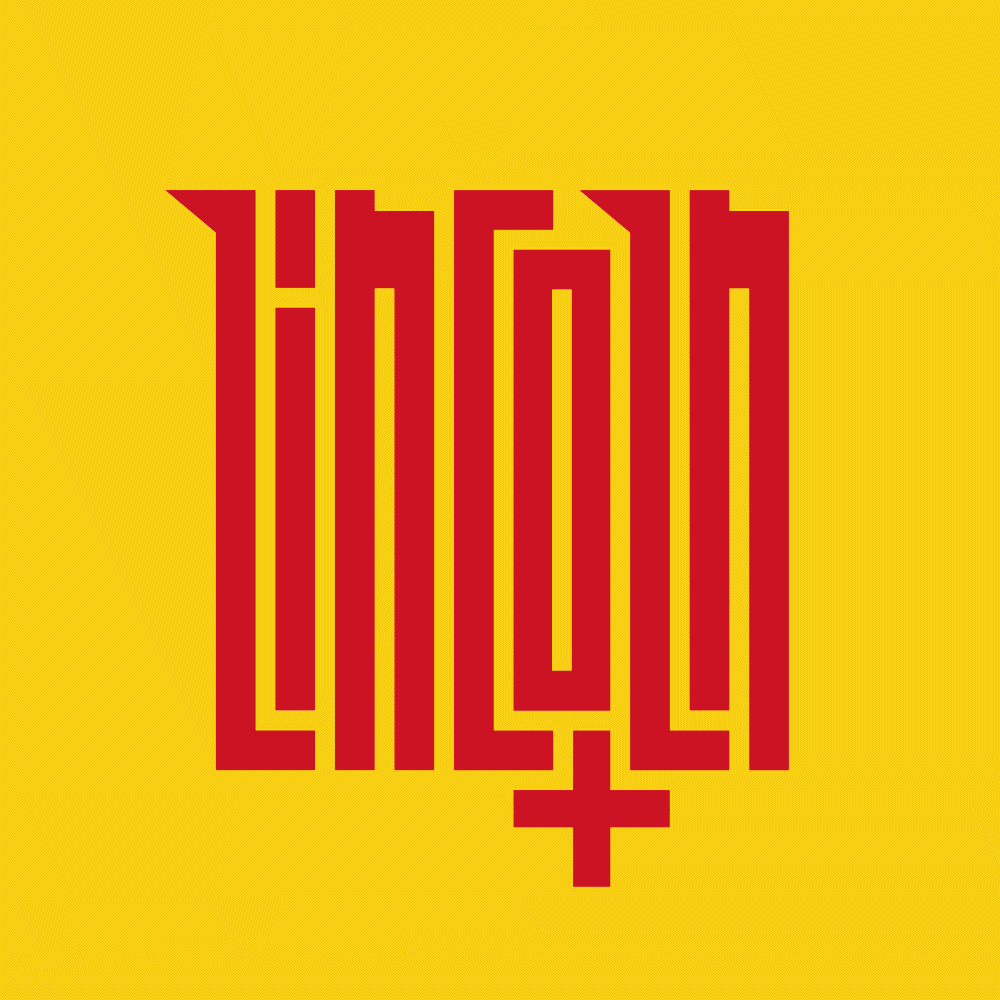
A variable typeface that I designed for the city of Lincoln. The street Steep Hill got its name because it is exactly that, first used by residents when the city was called Lindum Colonia when the Roman inhabitants decided to expand the settlement down the hill. This street separates the old from the new, at the bottom of the hill you will find bars, modern restaurants and shops. The further up the hill you go the older and more traditional everything becomes, from tea rooms, artisans, even whiskey and toffee makers. I saw it fit to use this location as my reference, as mentioned at the start of this challenge, I aimed to reference the old and the new. I wanted my design to reflect the old and the new, whilst highlighting the packed city, I have done this by squishing the typeface together. By incorporating Serif features at the top of the letters, I have represented the old.